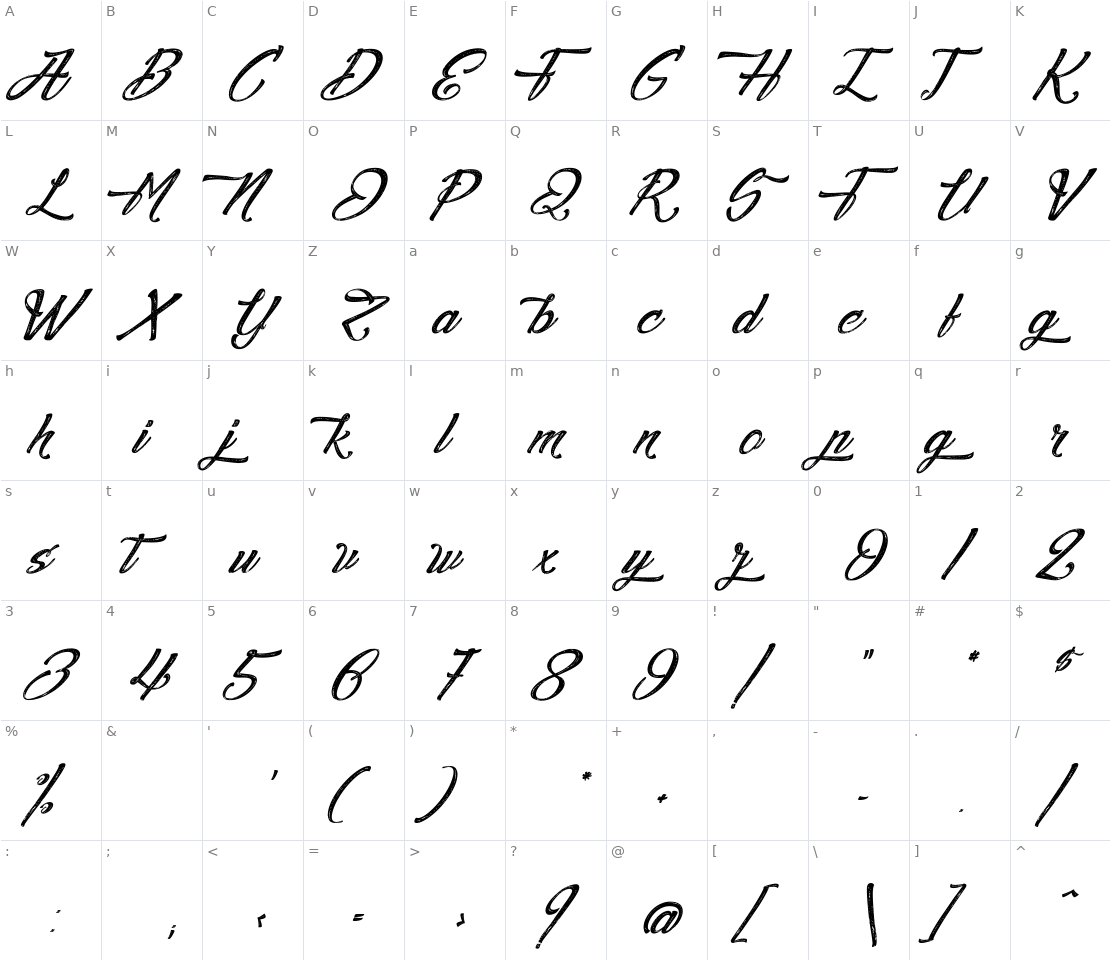
Agua de Jamaica
by Cat.B · Website
Agua de Jamaica is a bold brush script from Cat.B with thick, slanted strokes that move with real momentum across the page. The letterforms feel expressive and gestural, like they were laid down quickly with a loaded brush, giving each word a sense of energy and spontaneity. Built for headlines, posters, and branding where you want type that feels handmade and unapologetically loud.